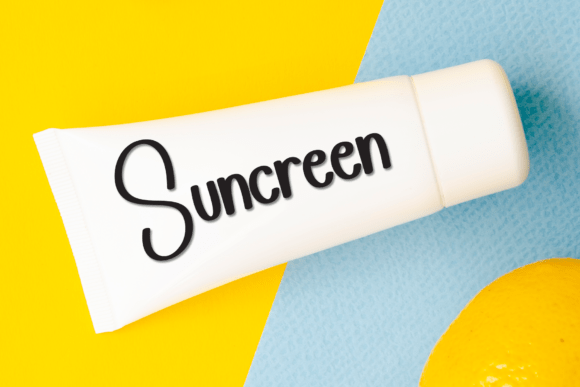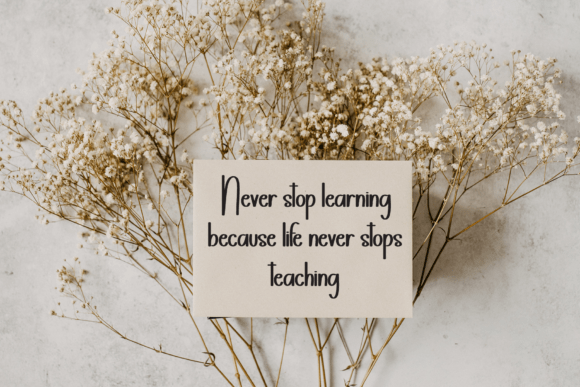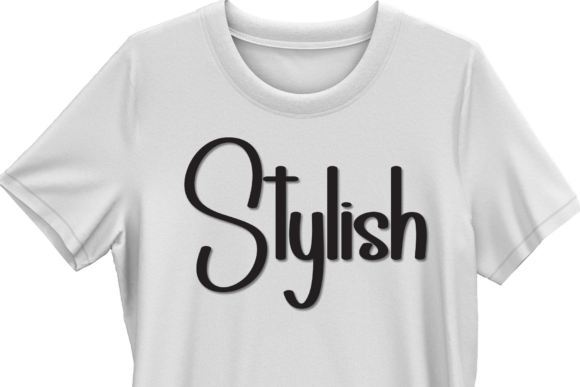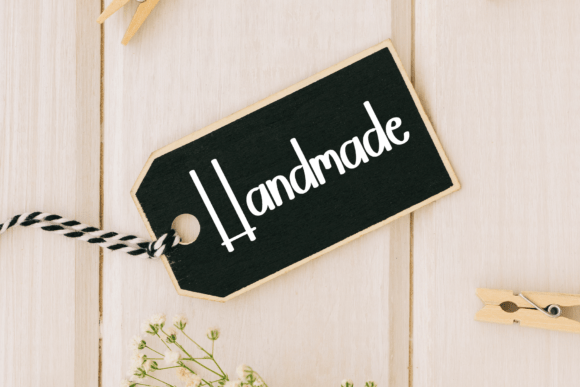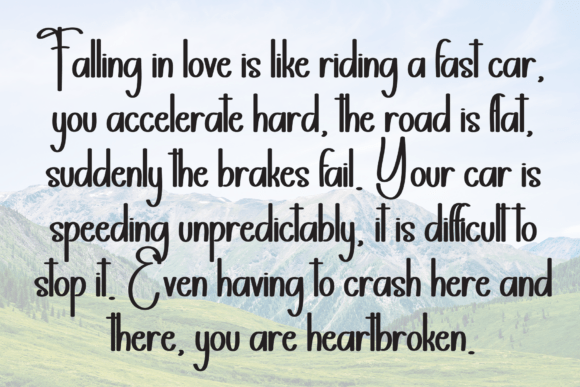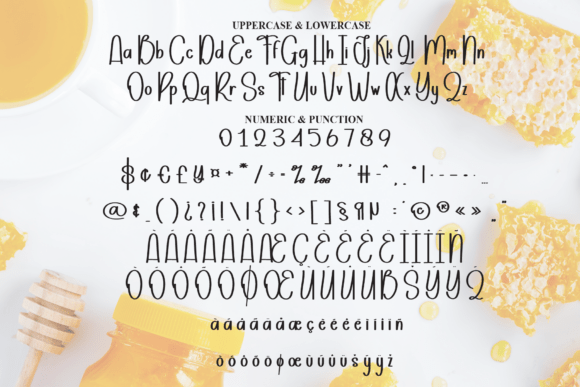
Introduction to Honney Font
Do you remember that moment when you’re working on a creative project and the right font can make all the difference? You’re scrolling through your favorite font library, and suddenly, you stumble upon a font that just feels like it was made for your project. For me, that moment came when I discovered the Honney Font – a neat and casual display font that radiates fun and relaxation.
With its clean lines and easygoing vibe, Honney Font is the perfect design resource for anyone looking to create a playful and laid-back atmosphere in their project. Whether you’re working on a summer poster, event flyer, or branding, this cheerful typeface brings a breezy feel to any message. And the best part? It’s available for free download, making it an accessible and high-quality design resource for designers of all levels.
- High-quality, elegant script font suitable for various creative projects.
- Includes a comprehensive character set with uppercase and lowercase letters, numbers, and special characters.
- Perfect for wedding invitations, logos, branding materials, and other design projects requiring a touch of elegance and sophistication.
Honest Review: Honney Font
I recently stumbled upon the Honney Font, a new design resource that’s been generating quite a buzz in the creative community. After giving it a try, I’m excited to share my honest thoughts on this font.
What works well: ✨ The Honney Font boasts a modern and sleek aesthetic that’s perfect for any high-quality creative project. Its clean lines, rounded edges, and subtle curves make it a great choice for logos, headings, and body text alike. Additionally, the font is available for free download, which is always a bonus for designers on a budget.
What could be improved: ⚠️ While the Honney Font is a great addition to any design resource library, I did encounter some issues with the transparent background option. At times, the font would clip or overlap with the background, requiring some extra adjustments to get the desired look. However, this issue is relatively minor and didn’t detract from my overall experience.
Overall impression: I’m impressed with the Honney Font and would definitely recommend it to designers looking for a high-quality, free font. With a little patience and experimentation, the font’s limitations can be easily overcome. As a design resource, the Honney Font is a valuable addition to any creative project.
- Modern and sleek aesthetic
- Available for various creative projects
Honney Font is a high-quality, free design resource ideal for various creative projects. Its transparent background makes it perfect for overlaying text or graphics on images.
For optimal results, use Honney Font on a dark background to make the text stand out. Experiment with different font sizes and colors to achieve the desired effect.
Common Use Cases for Honney Font
Honney Font is ideal for:
- Graphic design projects
- Wedding invitations
No, the Honney Font does not have a transparent background. However, its high-quality design and crisp lines make it suitable for a variety of design applications, from logos to graphics and more.